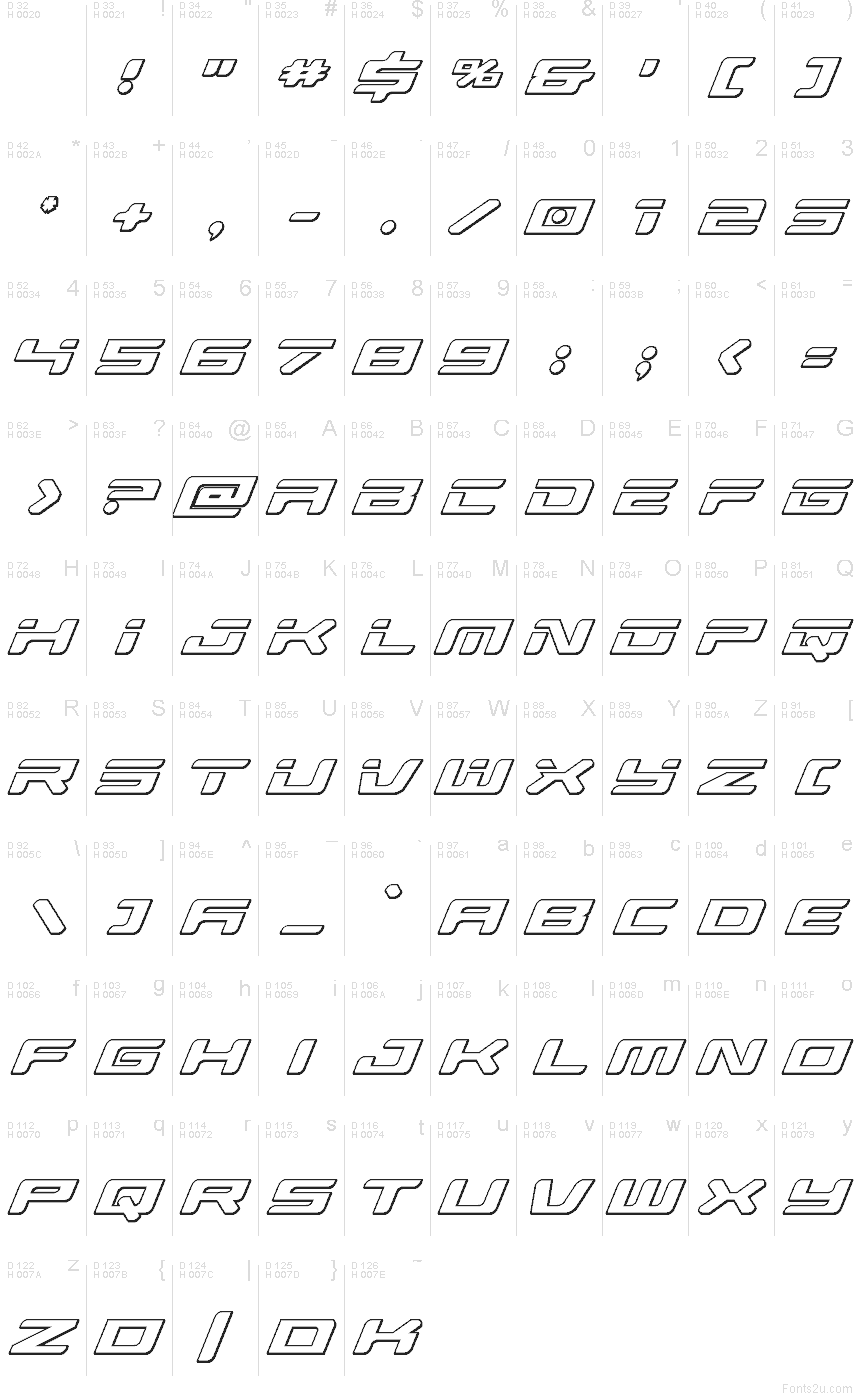
Race Pod 3D Italic
Race Pod 3D Italic font by Iconian Fonts is a free techno 3D display typeface that looks like it’s been fired straight out of a racing tunnel. Long, aerodynamic letterforms lean hard into the italic angle, while the faceted 3D edges and inner gaps create a metallic, speed-lined effect. It feels fast, chrome-bright, and slightly aggressive, giving any title the energy of motion and machinery.
Using Race Pod 3D Italic, you can push high-impact visuals for racing event posters, esports branding, sci-fi game titles, tech YouTube thumbnails, energy drink packaging, and futuristic sport logos. The tight rhythm of this free font makes short words and acronyms especially punchy, so keep it for headlines and nameplates. Pair it with a clean, neutral sans serif in smaller text to let Race Pod carry the adrenaline up front.